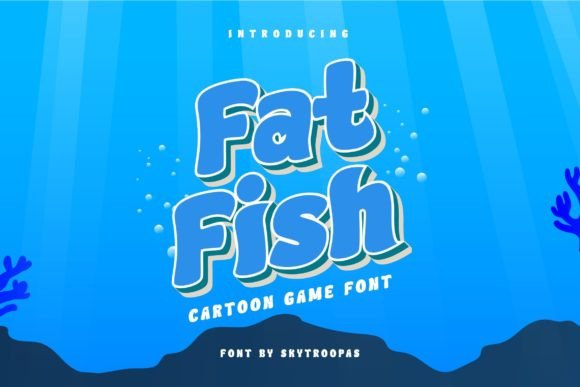
Welcome to the captivating world of Fat Fish – Ocean Gaming Font, where boldness and cuteness harmoniously blend to create a font that's both eye-catching and readable. Its playful yet sophisticated vibe makes it an ideal choice for injecting a dash of fun into your creative projects.
At first glance, Fat Fish Font captivates with its bold and playful lines, reminiscent of a cartoonish adventure. This font exudes a sense of lightheartedness and whimsy, making it a perfect fit for designs targeting children. Picture book illustrations, educational materials, and playful branding projects come alive with Fat Fish's charming presence.
Beyond its playful exterior, Fat Fish is also a master of readability. Its carefully crafted letters ensure that your message is conveyed with clarity and precision, even in formal settings. This duality makes Fat Fish a versatile font that seamlessly adapts to various contexts.
If you're looking to create movie subtitles that demand attention, Fat Fish is your go-to font. Its distinct and memorable letterforms command attention, ensuring that your audience's eyes remain glued to the screen. Whether it's an epic blockbuster or a heartwarming indie film, Fat Fish adds an unforgettable touch to your cinematic storytelling.
Designers seeking to create impactful online games will find solace in Fat Fish's energetic and dynamic personality. Its bold strokes and playful curves bring life to character designs, user interfaces, and in-game text. Imagine a world where every click and interaction is accompanied by the cheerful spirit of Fat Fish.
Fat Fish flourishes in the realm of teens' events, capturing their vibrant energy and youthful exuberance. Event posters, tickets, and social media promotions become irresistible with Fat Fish's youthful charm. It's the perfect font to invite teens to unforgettable experiences, making them feel seen and celebrated.
The versatility of Fat Fish extends to school supplies, where it transforms everyday items into delightful companions. Notebooks, pencils, and backpacks adorned with Fat Fish become cherished tools, inspiring creativity and imagination in young minds. Learning becomes an adventure with Fat Fish as their trusty companion.
Designers seeking to create captivating posters will find a willing accomplice in Fat Fish. Its bold and quirky letterforms demand attention, making your messages impossible to ignore. Whether promoting a local business, a cultural event, or a social cause, Fat Fish ensures that your posters stand out from the crowd and leave a lasting impression.